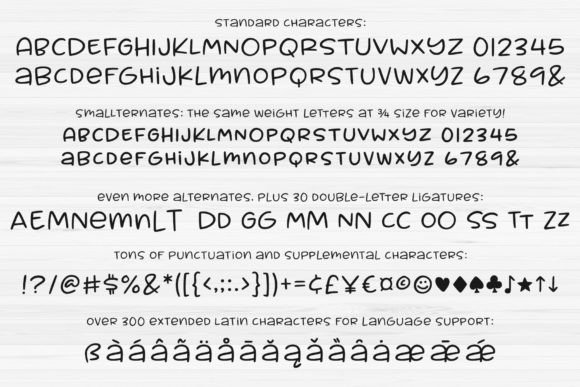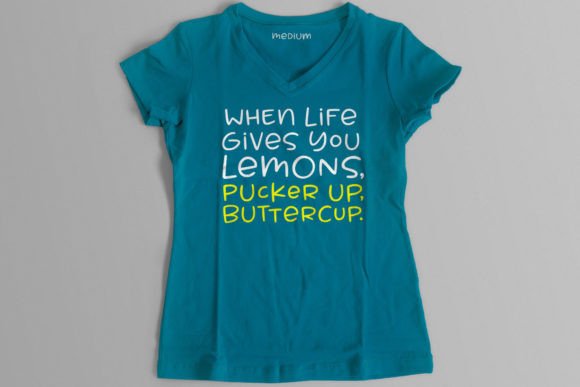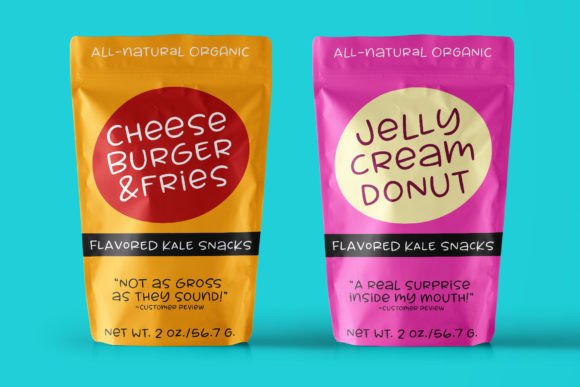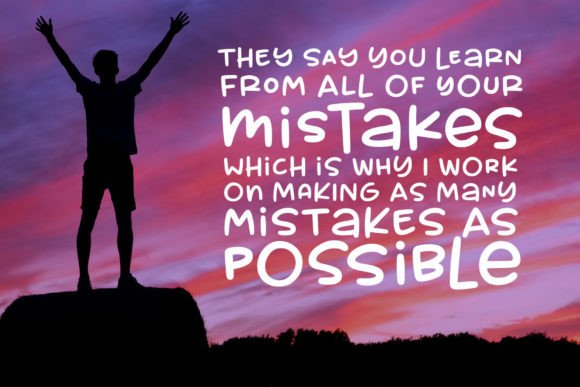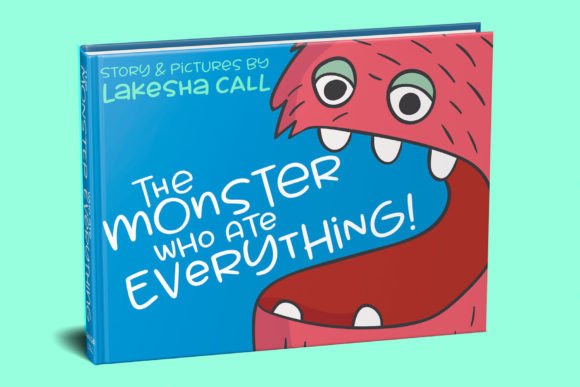
Introduction to Muggsy Font
I do a lot of taller, narrower handwriting fonts; this time around, I was inspired to make a wider, shorter handwriting font.
MUGGSY has everything you expect from one of my fonts: clean and smooth curves, a full set of alternates, and a feeling of fun MUGGSY has two uppercase-height alphabets (with a few lowercase-style letters like a and e in the lowercase set), plus a full set of 63 โsmallternatesโ โ the same letters, numbers, and ampersand sized down to 75%, and beefed up in weight so they can be mixed in with the full-size letters.